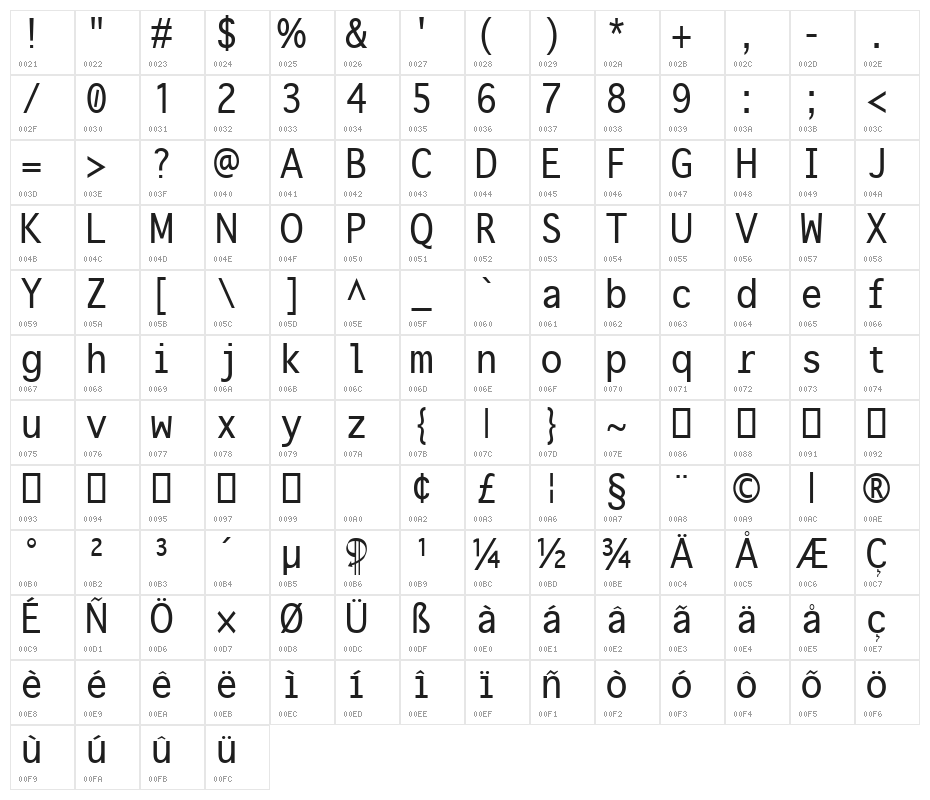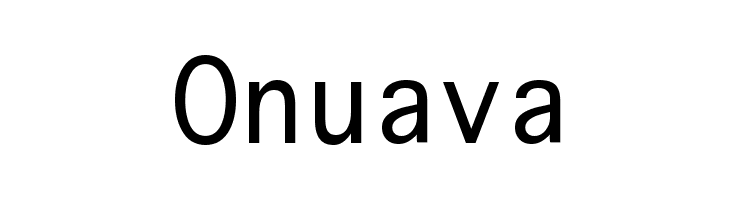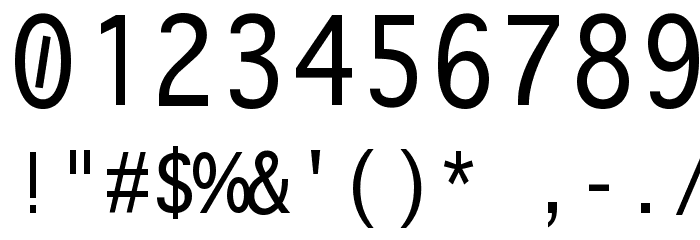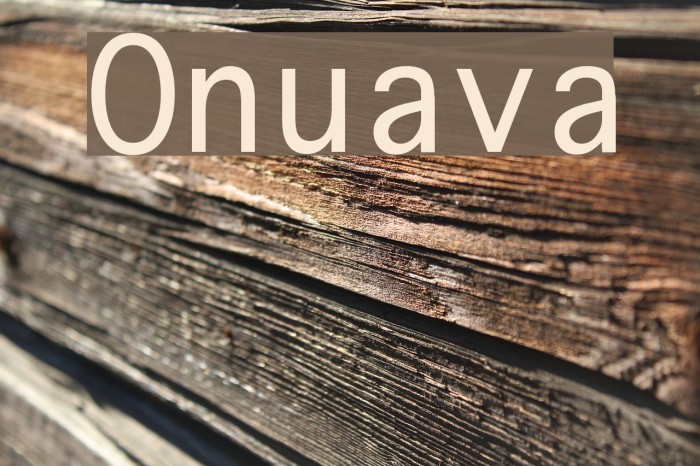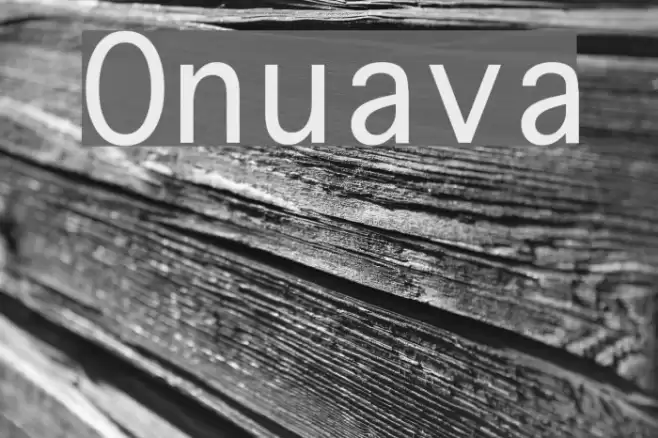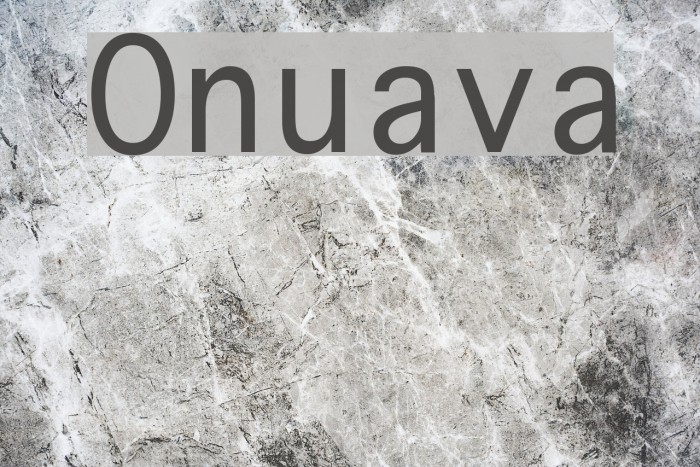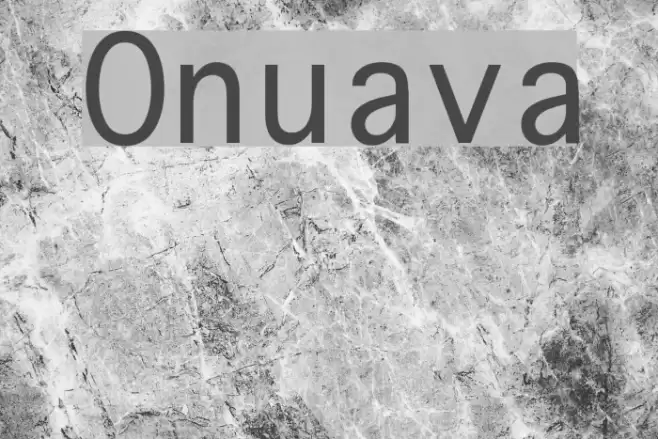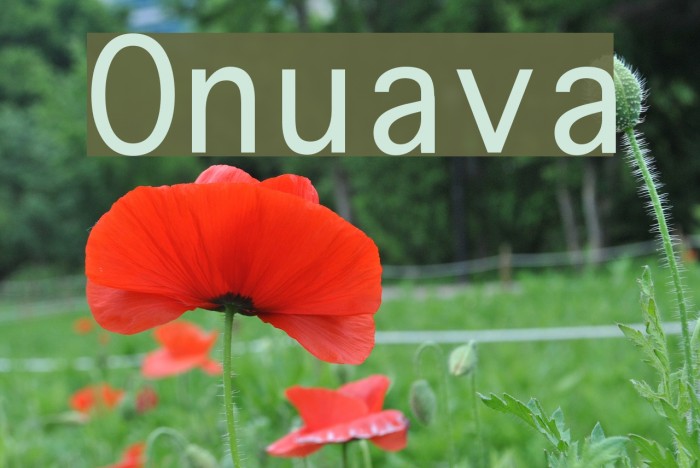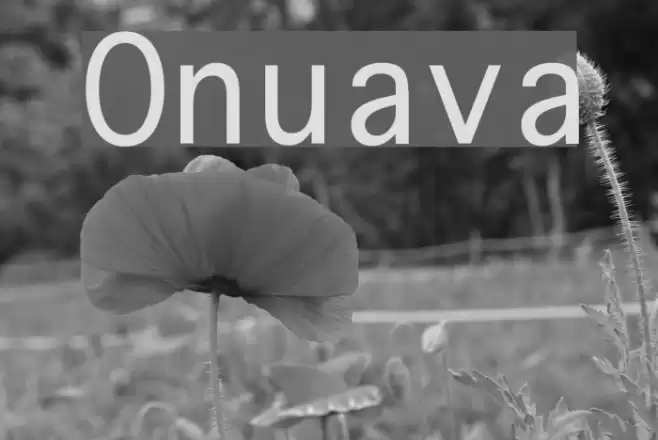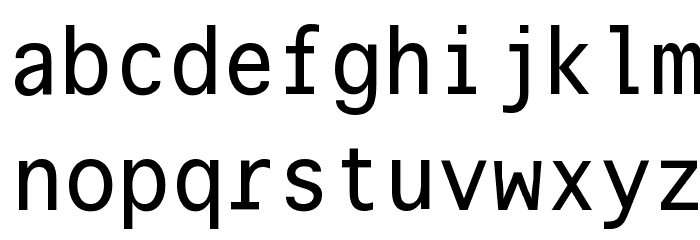
Onuava Font
Onuava Description
This font features a clean and modern sans-serif design, characterized by its geometric shapes and uniform stroke widths. The uppercase letters are bold and assertive, while the lowercase letters maintain a consistent and harmonious appearance. The numerals are clear and easily distinguishable, making them suitable for various applications. Special characters are well-defined, adding versatility to the font's use. The overall aesthetic is minimalistic, with a focus on readability and functionality, making it ideal for both digital and print media.
| Use Case | Headlines, Body text, Logos |
| Proposed Projects | Ideal for branding, web design, advertising, and editorial content where clarity and modernity are key. |